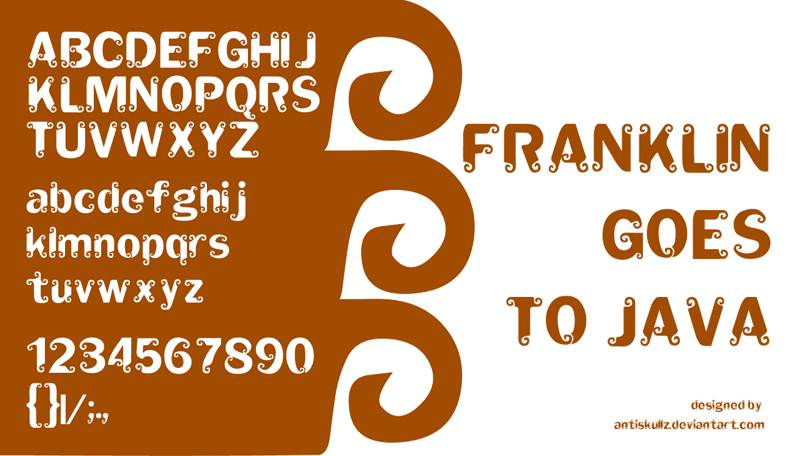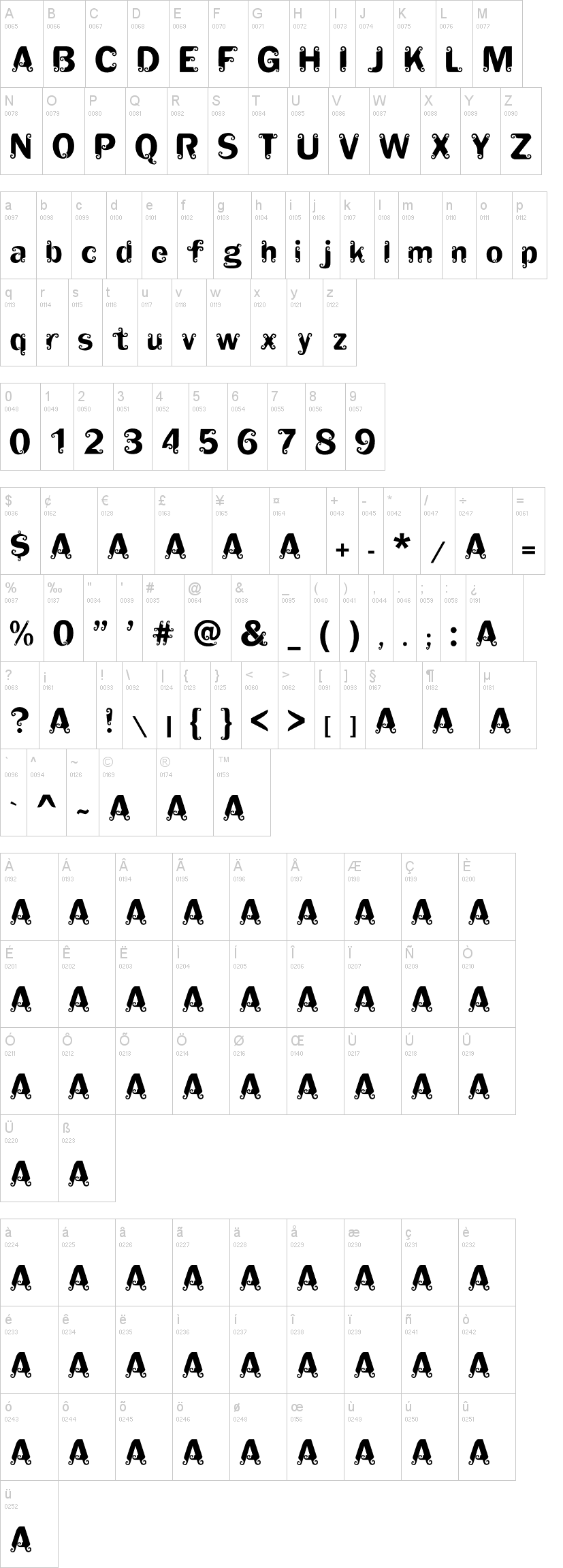
Шрифт Franklin Goes to Java
Franklin Goes to Java
This font created with base font Franklin Gothic Demi. I modification it for my personal font. Inspiration from traditional Java Ornament by various application on java culture,such as traditional weapon,traditional architecture